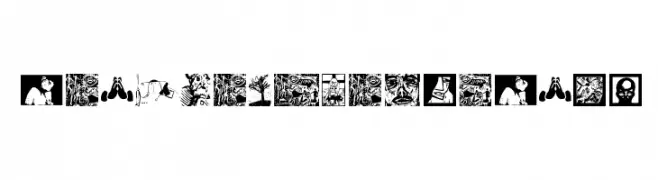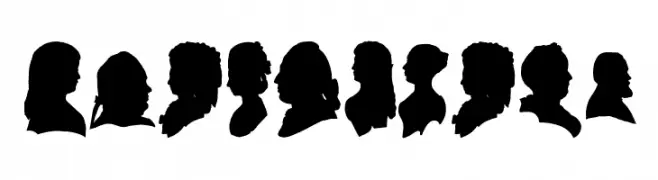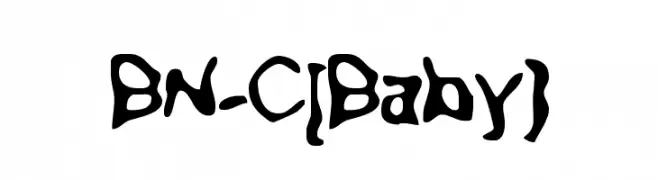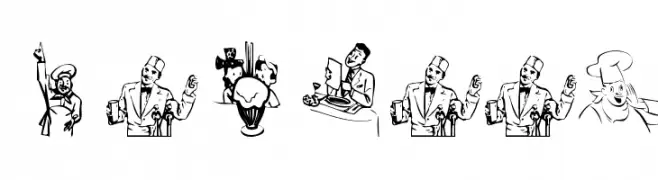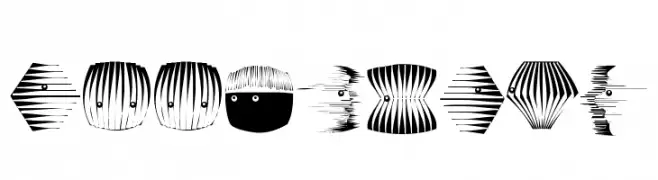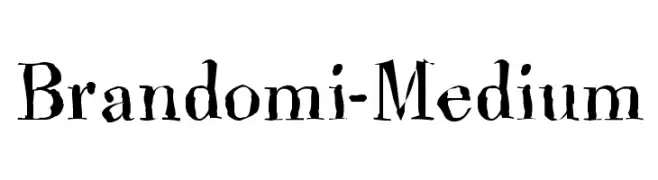
A display font made from human head silhouettes.
An artistic, image-based decorative font with linocut illustration style.
An abstract, brushstroke-inspired font with a bold and chaotic style.
A playful, bold font with wavy, hand-drawn characters.
Hand-drawn, food-themed cartoon illustrations replace standard glyphs.
A decorative series of abstract, fish-like shapes with bold, graphic patterns.
A rustic, hand-drawn font with dynamic strokes and a vintage-modern appeal.